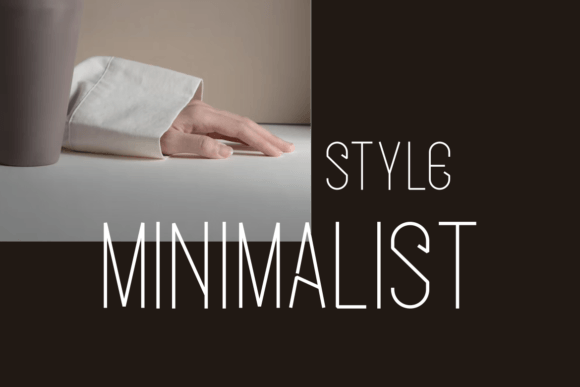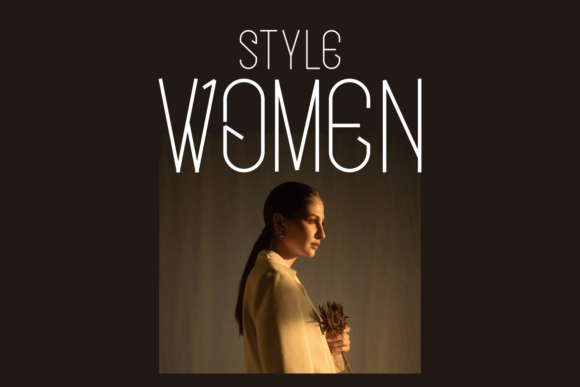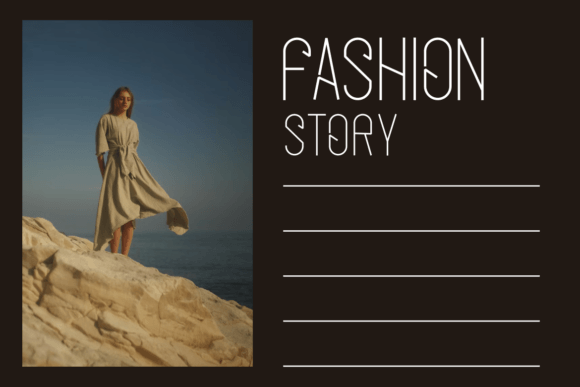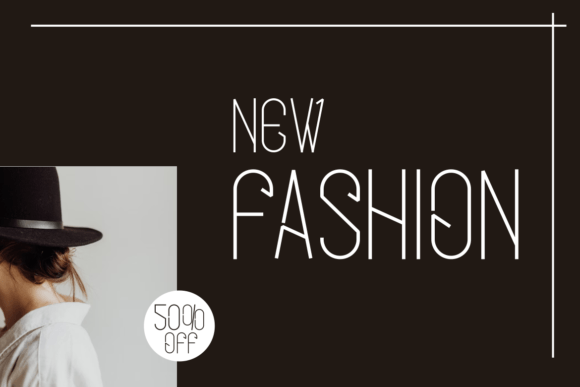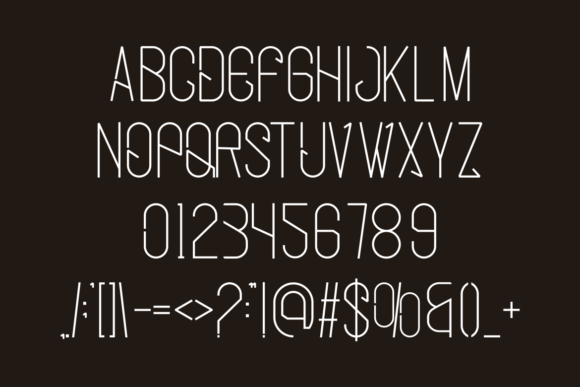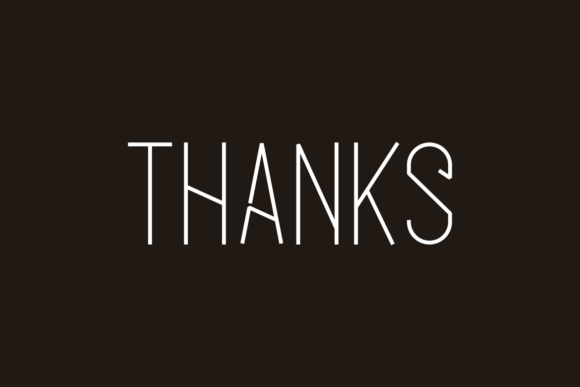
Qrostil
Qrostil: A Unique and Elegant Slab Serif Font
Qrostil is a unique slab serif font that combines beautiful, classy, elegant, and modern design elements. This versatile typeface is perfect for various projects, from signatures and stationery to branding and packaging design.
Key Features of Qrostil
• Unique Design: Offers distinctive letterforms with elegant serifs.
• Modern Appeal: Features contemporary design elements.
• Classy Character: Brings sophisticated style to designs.
• Versatile Application: Adapts well to numerous design contexts.
Best Uses for Qrostil
Thanks to its versatile characteristics, Qrostil works especially well for:
When using Qrostil in your designs, keep these tips in mind:
• Try it for headlines or display text to showcase its unique style.
• Use different sizes to highlight its modern features.
• Pair with simpler fonts for body text to create balance.
• Let its versatility enhance both traditional and contemporary projects.
To sum up, Qrostil is an excellent choice for designers seeking a unique and elegant slab serif font. Its versatility makes it perfect for a wide range of projects. Whether you’re creating wedding materials, designing logos, or developing branding packages, Qrostil offers the perfect blend of contemporary style and timeless sophistication.
Furthermore, Qrostil’s distinctive design allows it to shine in contexts where both uniqueness and elegance are key. For instance, from stationery to website headers, this font can elevate your projects with its refined style. Also, its modern yet classy appearance works particularly well in designs that aim to make a sophisticated impact.
In conclusion, Qrostil truly captures the essence of modern elegance in slab serif typography. Its versatility across different applications shows how well it can serve various creative needs. Therefore, for those wanting to add a touch of unique sophistication to their work, Qrostil can enhance any design with its distinctive style. Ultimately, it’s perfect for designers aiming to make an elegant, modern impact across a wide range of creative projects.